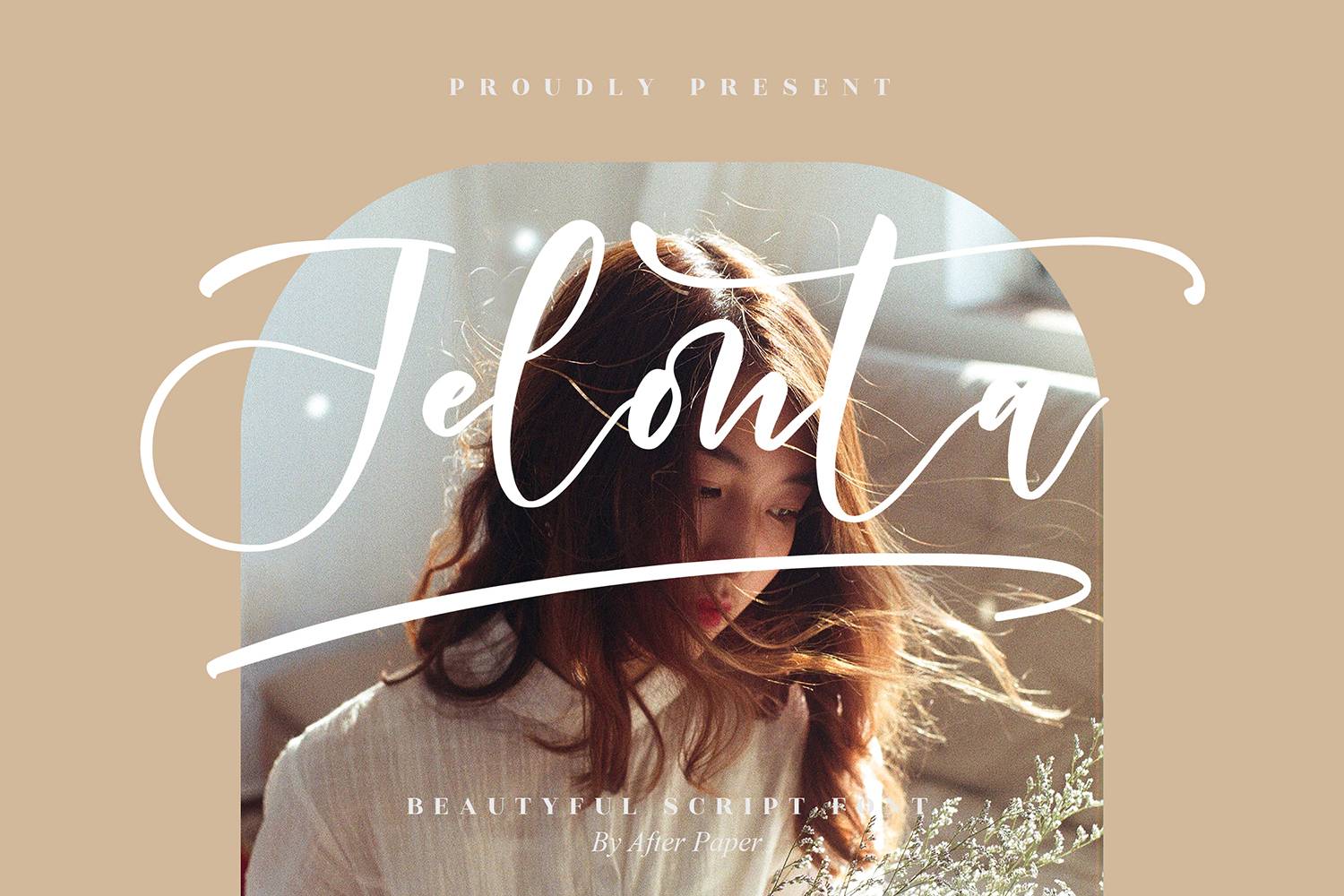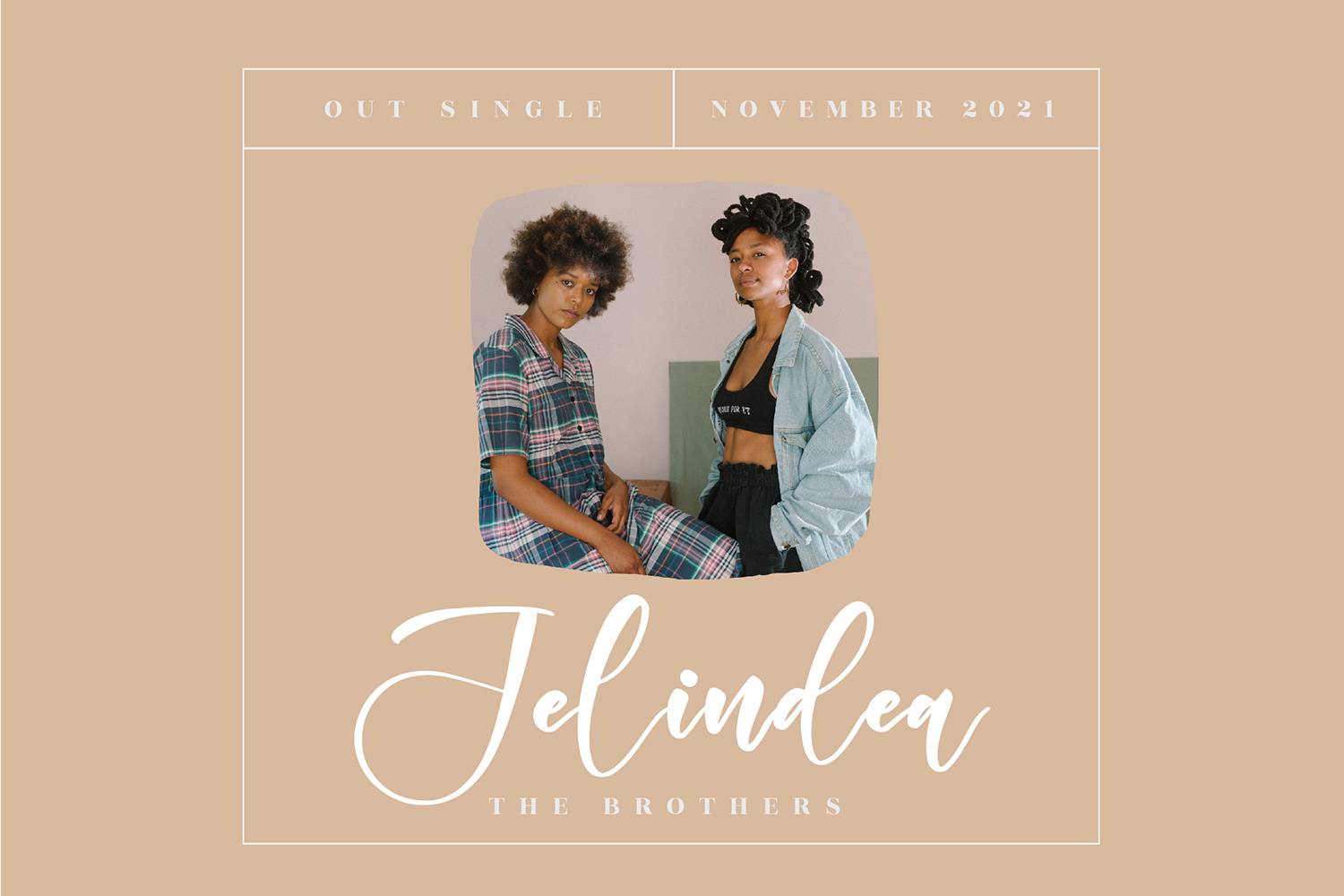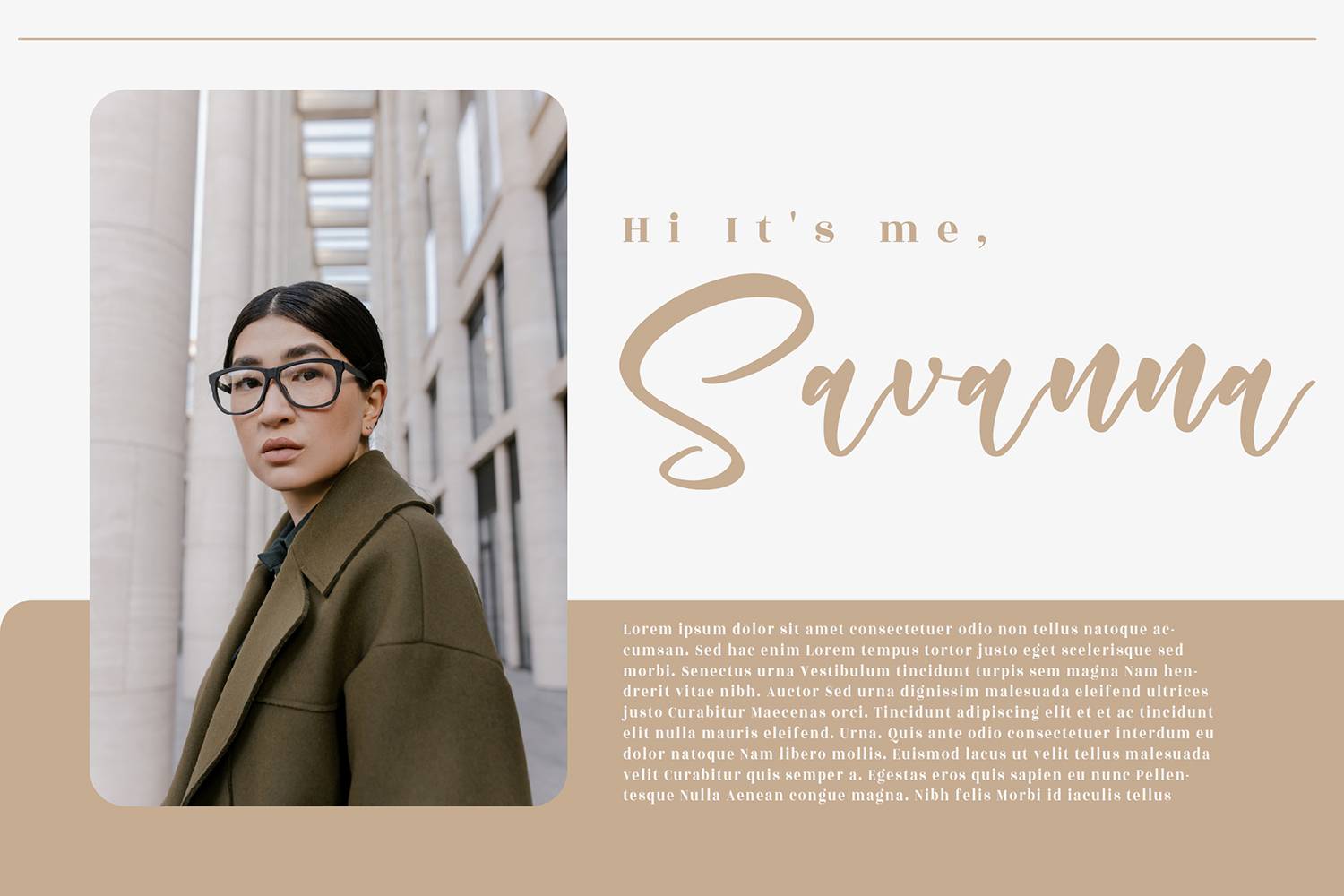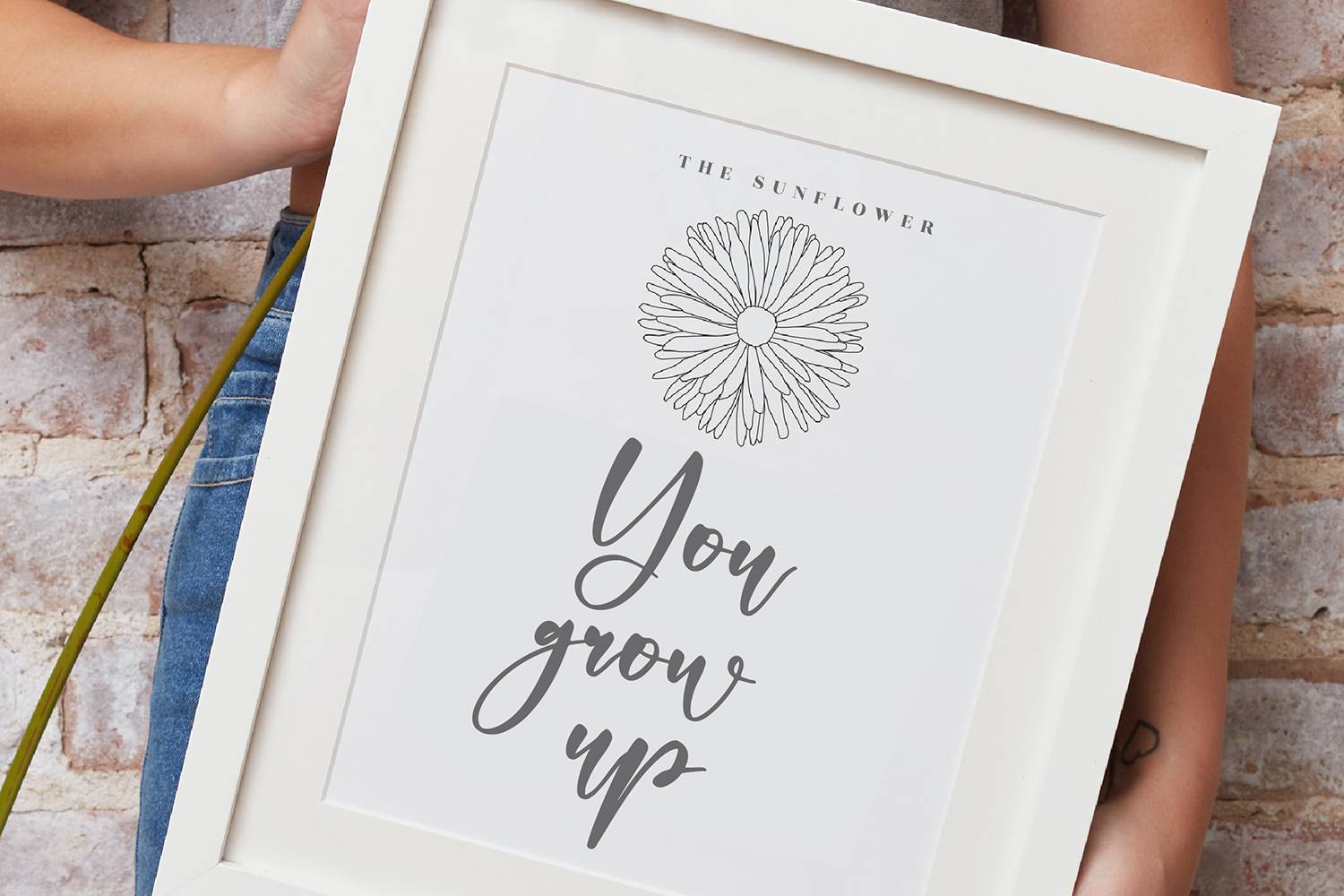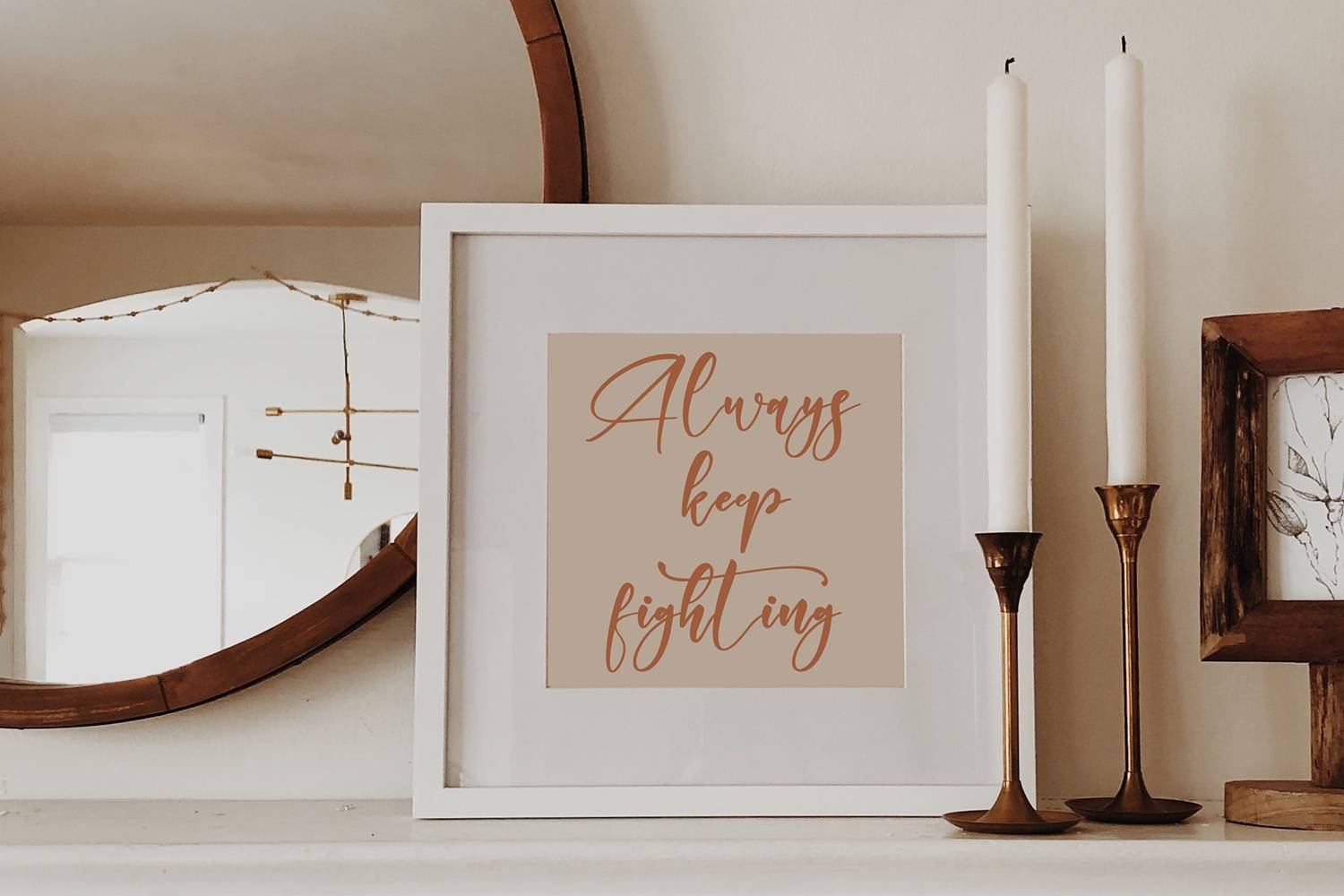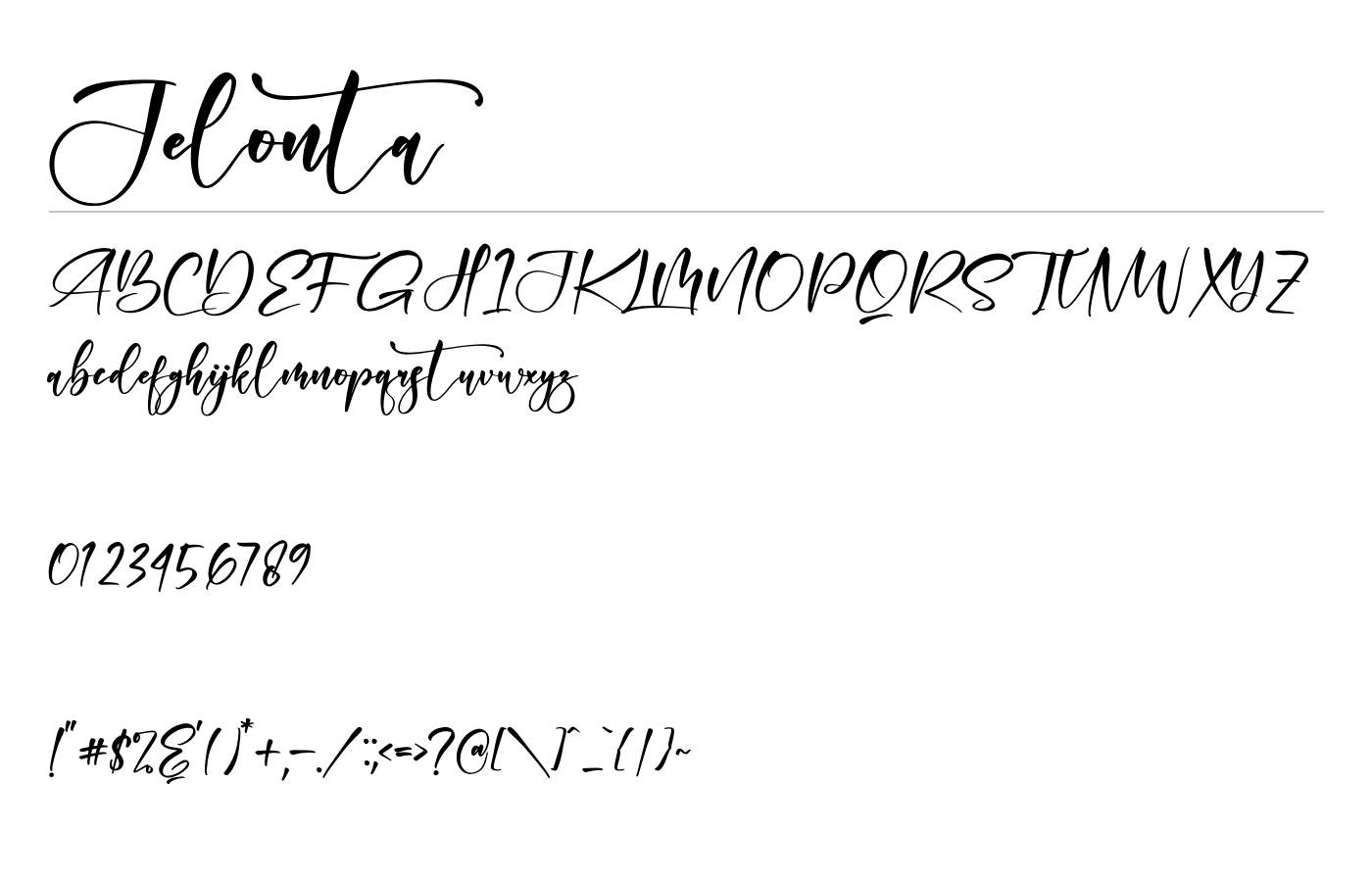
Jelonta is an elegant, modern script font that features flowing, calligraphic strokes with varying thickness, creating a lively and sophisticated look. Its graceful letterforms and delicate swashes make it ideal for luxury branding, invitations, and stylish headlines, adding a personal and artistic touch to any design. This font works beautifully where a chic, handcrafted feel is desired, especially in fashion, packaging, and editorial projects.
Jelonta Font
About Jelonta Font